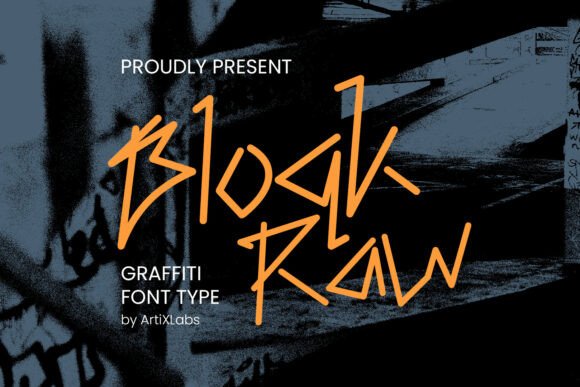
Block Raw: A Bold Display Font for Editorial Impact
When your publication needs to stop scrolling, break expectations, and anchor attention—not with noise, but with intention—Block Raw steps in. This isn’t just another display font. It’s a typographic statement rooted in street-level authenticity: sharp, unfiltered, and structurally expressive. Designed as a graffiti-inspired typeface, Block Raw carries the energy of handstyle tagging—but refined for editorial clarity, not chaos. Its strokes are deliberate, its angles assertive, and its rhythm unmistakably urban. For bloggers, magazine designers, ebook creators, and independent content brands, it’s a rare kind of display font that balances attitude with utility.
Where Block Raw Earns Its Place in Editorial Layouts
Block Raw excels where visual hierarchy meets narrative tone. Use it for cover titles on digital magazines or print zines—it commands space without shouting. Apply it to chapter openers in coaching workbooks or printable guides, where a single word like “Clarity” or “Ritual” gains gravity through weight and gesture. In newsletters, deploy Block Raw for section headers (“This Week’s Insight,” “Your Turn”) to signal shifts in voice or pacing. It also transforms quote graphics: pull a line from an interview or manifesto, set it in Block Raw over a muted background, and you’ve created shareable, brand-consistent moments that resonate on both desktop and mobile feeds.
For lifestyle blogs or recipe ebooks, Block Raw works powerfully in contrast—not as body text, but as punctuation. Imagine a minimalist pasta guide where “Hand-Torn Basil” appears in Block Raw above a clean sans serif ingredient list. Or a wedding planning printable where “Vows” opens a section in bold, textured letterforms while the rest flows in a highly legible serif. That tension—between raw expression and quiet readability—is where Block Raw earns its editorial value.
Readability, Responsiveness, and Real-World Use
Block Raw is intentionally designed for impact at larger sizes: headlines, covers, social banners, and large-format prints. It’s not intended for body copy, captions, or interface labels—and that’s by design. Its character set prioritizes presence over paragraph flow. That said, it renders cleanly across devices when used appropriately: crisp in PDF exports, stable in web-safe embedding (via modern font hosting), and richly textured in high-res print layouts. On mobile, keep usage concise—single-word headers or short phrases scale well; avoid stacking multiple lines of Block Raw in narrow viewports.
The font includes stylistic alternates and ligatures that add nuance without complexity. These aren’t decorative flourishes—they’re subtle refinements that help maintain rhythm across uneven word lengths (e.g., “Grit” vs. “Community”). While Block Raw supports major Latin-based languages, verify multilingual coverage if your audience spans accented French, Spanish, or Portuguese text. Always test diacritics in context—especially for bilingual newsletters or global-facing ebooks.
Pairing Block Raw With Purpose
Great editorial typography thrives on contrast and cohesion. Block Raw pairs most effectively with typefaces that ground its energy: a warm, readable serif like Merriweather or PT Serif for long-form blog posts or ebook chapters; a neutral, humanist sans serif like Inter or Work Sans for navigation, subheads, and callouts. Avoid pairing it with other display fonts—especially script or handwritten styles—unless you’re deliberately building layered, campaign-specific graphics (e.g., a limited-run workshop poster).
In branding systems, Block Raw functions best as an accent typeface—not the sole voice. Use it consistently for primary headlines and branded quote treatments, then let your supporting typeface carry the rest. That consistency builds recognition: readers begin to associate Block Raw’s texture with your publication’s confidence, authenticity, or creative edge.
Practical Considerations for Creators
For course creators launching a branded learning path, Block Raw strengthens identity without sacrificing clarity: use it for module titles (“Foundations,” “Iteration,” “Voice”), then switch to a friendly sans for lesson intros and summaries. Wedding guide authors can apply it to milestone headings (“The First Look,” “First Dance”) while keeping timelines and vendor lists in a calm, functional typeface. Even in data-driven contexts—like a sustainability report or annual review—Block Raw adds human-centered emphasis to key themes (“Accountability,” “Growth,” “Action”) without undermining credibility.
A Typeface That Serves the Story
Block Raw doesn’t ask to be everywhere. It asks to be *chosen*—for moments that deserve distinction, emotion, or emphasis. It supports reader engagement not by overwhelming, but by clarifying intent. When your cover says “Unlearn” in Block Raw, readers understand this isn’t background noise. It’s an invitation. When your newsletter signs off with “Stay Grounded” in those sharp, confident letters, it reinforces tone as much as message. That’s the quiet power of thoughtful display typography: it shapes how ideas land, how voices register, and how publications earn loyalty—not through volume, but through visual conviction.